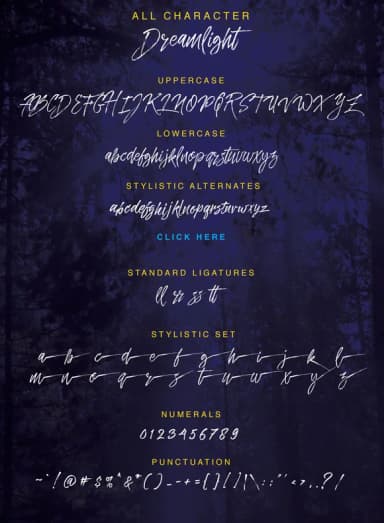
1 / 7About Dreamlight Font
Dreamlight by QueenType is a flowing script font that brings organic elegance and authentic character to hand-lettered design projects. The typeface features graceful, rounded letterforms that faithfully echo genuine pen-and-ink lettering while maintaining strong readability at any scale, from large attention-grabbing headlines down to smaller body text passages. This distinctive style works beautifully for wedding invitation suites, personalized greeting card collections, boutique skincare and beauty packaging, and artisan product labels for independent sellers, small businesses, and designers looking for that handcrafted feel.
The font's sophisticated character appeals strongly to brands seeking an approachable yet refined visual identity. Beauty companies, handmade goods retailers, craft studios, and creative entrepreneurs frequently turn to Dreamlight to communicate authenticity, care, and personal attention within their brand communications and marketing materials. The script's natural, flowing letterforms convey genuine warmth while maintaining professional polish, making the typeface highly adaptable across diverse design contexts from wellness and lifestyle brands to fashion to home decor to specialty products. When combined with clean sans-serif typefaces or structured serif options, Dreamlight creates striking visual contrast that highlights key messaging while preserving the font's intimate, personal, and distinctly handwritten quality.
Dreamlight Font is a script font that shines as a display or heading face. Pair it with a clean sans-serif or serif font for body text β the contrast creates a clear hierarchy while the two styles stay balanced and easy to read.
Dreamlight Font
by QueenType